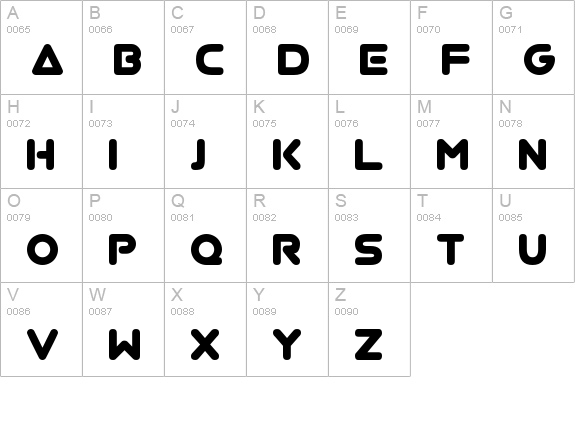
Virgo 01 is a stunning font that captures the essence of elegance and sophistication. This font is meticulously crafted with intricate details and precise lines, making it perfect for any design project that requires a touch of luxury. With its clean and modern appearance, Virgo 01 exudes a sense of professionalism and refinement. Its unique letterforms effortlessly blend classic and contemporary elements, creating a harmonious balance that is pleasing to the eye. Whether you're designing a logo, creating stunning graphics, or crafting a beautiful wedding invitation, Virgo 01 will elevate your work to new heights. Its versatility allows it to adapt to various design styles, making it a must-have font for designers and creatives alike. But what truly sets Virgo 01 apart is its accessibility. This font is free to download at FontsMarket.com, allowing anyone to have access to its beauty and versatility. No longer do you have to compromise on quality or pay exorbitant fees to use a premium font. Virgo 01 breaks those barriers by offering a high-quality font for free. So, why wait? Enhance your designs and unleash your creativity with Virgo 01. Download it now at FontsMarket.com and experience the perfect blend of elegance and accessibility.